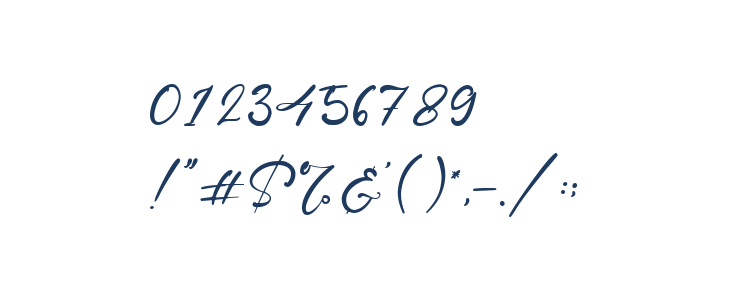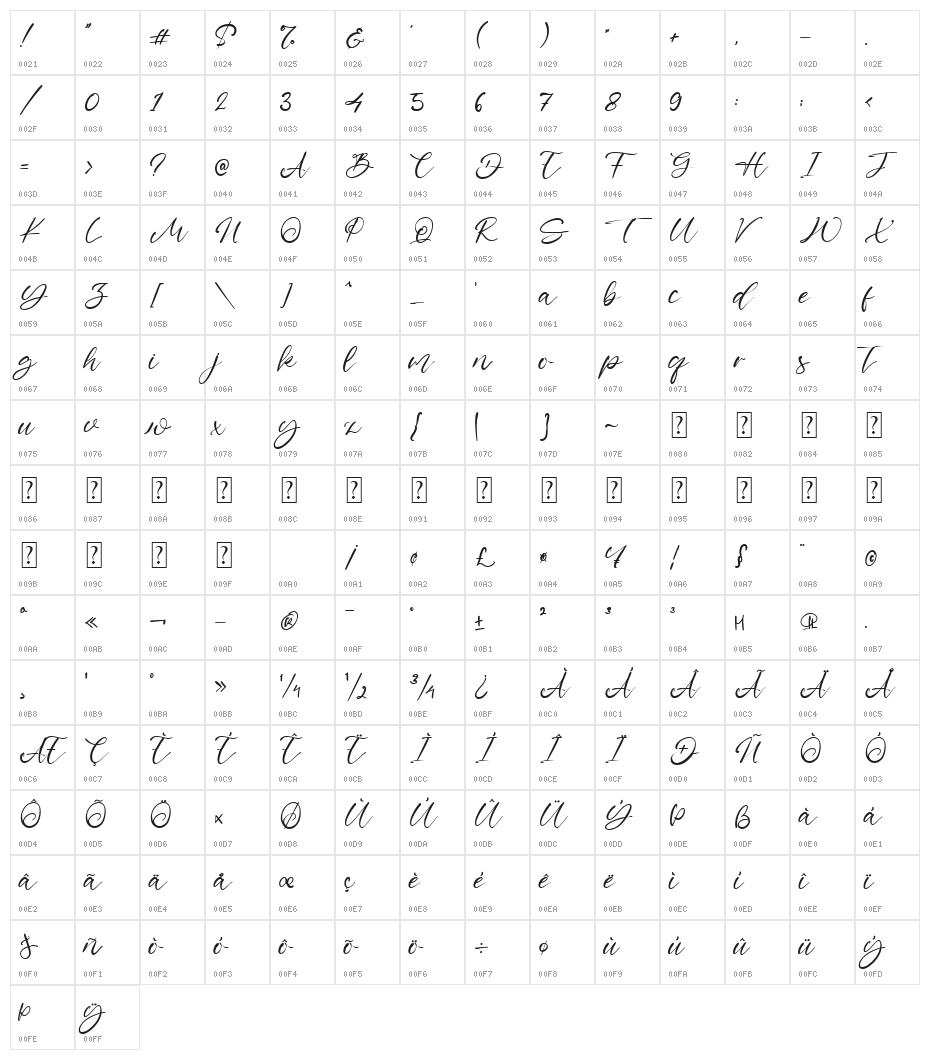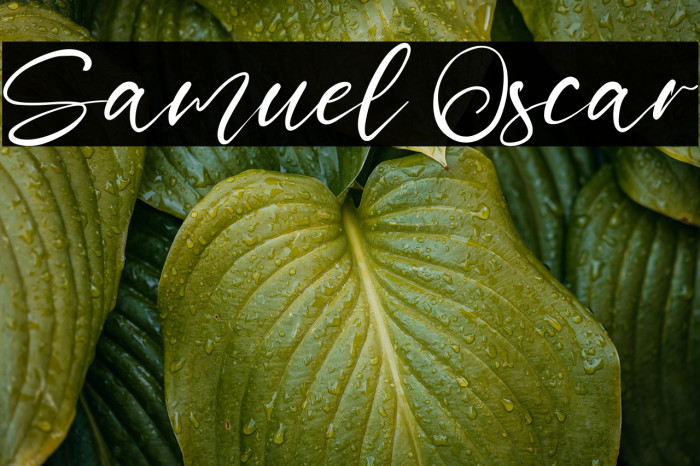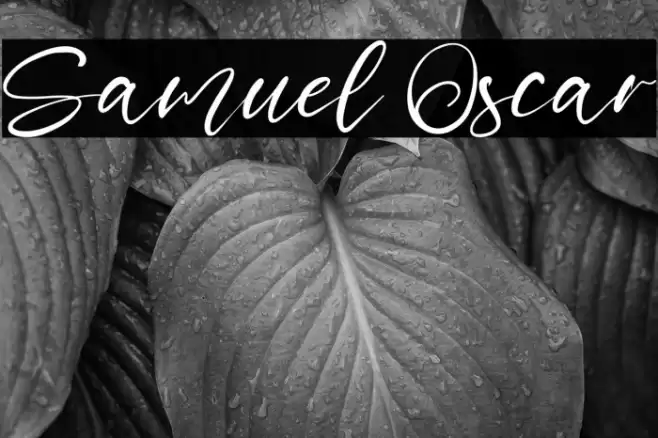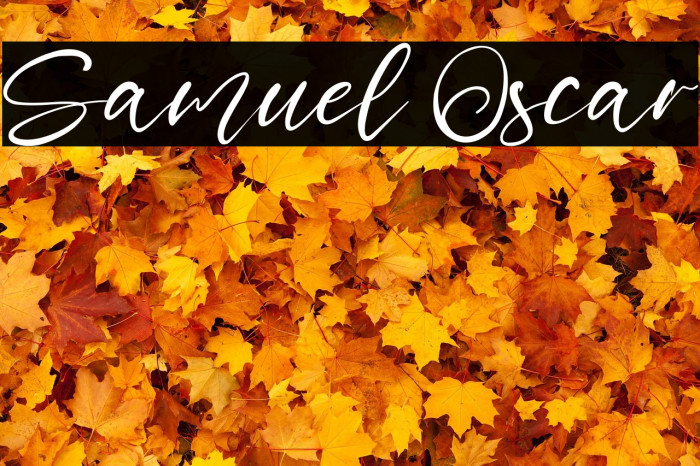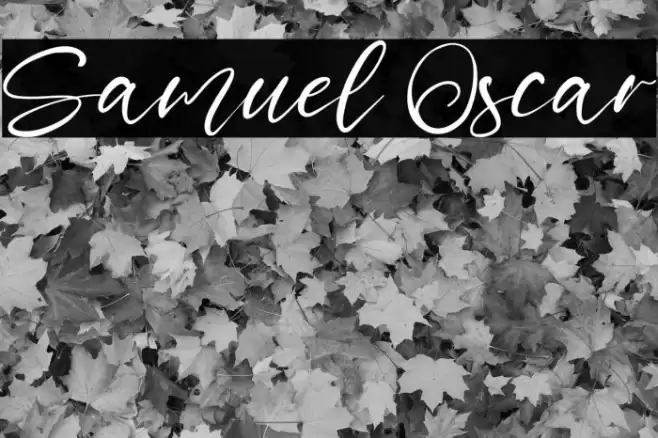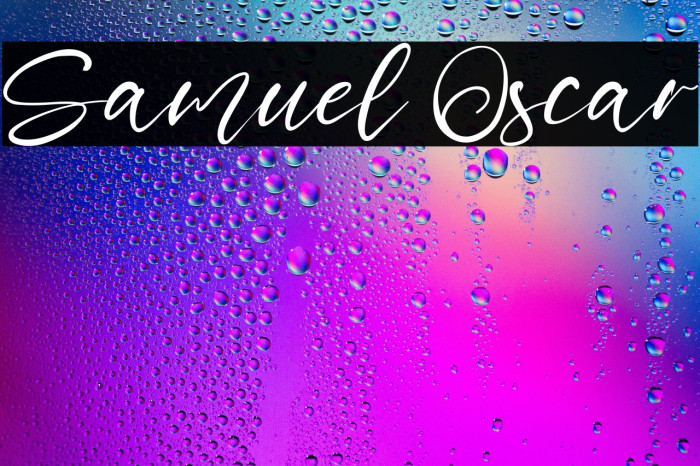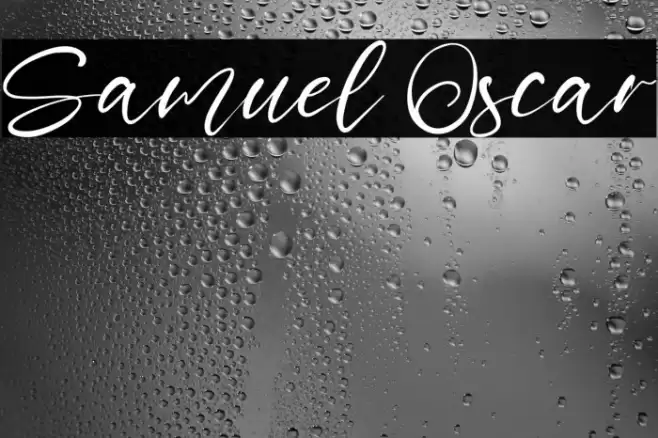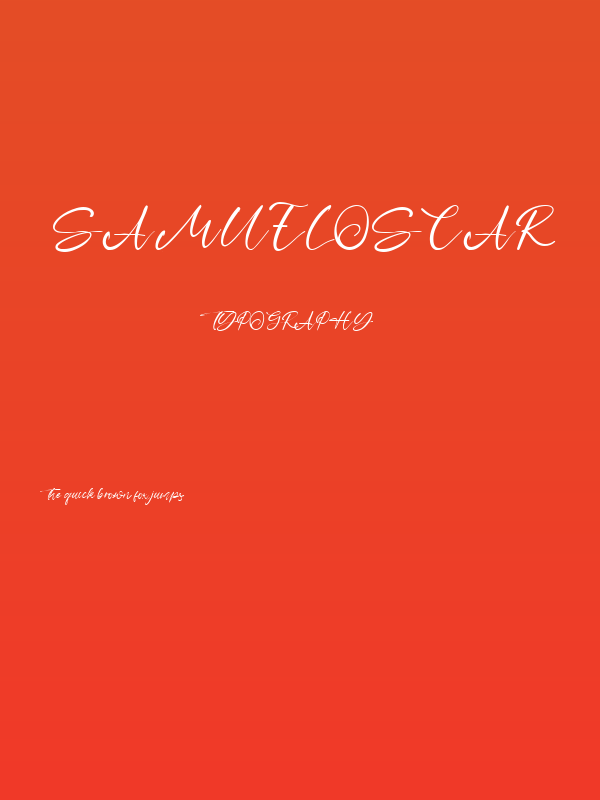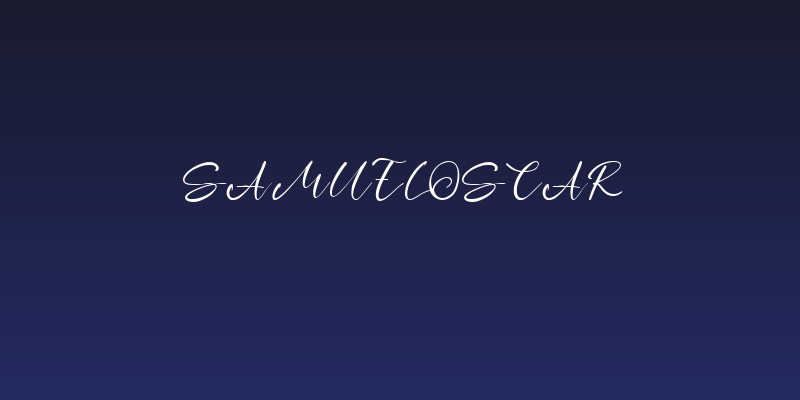
Samuel Oscar Font
Samuel Oscar Description
This elegant script font features a flowing, cursive style with a modern touch. The uppercase letters exhibit a graceful, interconnected design, while the lowercase letters maintain a consistent fluidity, enhancing readability. The numerals are stylishly crafted to match the overall aesthetic, and the special characters are seamlessly integrated into the design. The font's strokes vary in thickness, providing a dynamic contrast that adds to its visual appeal. This font is perfect for projects that require a sophisticated and personal touch, such as invitations, branding, and decorative text.